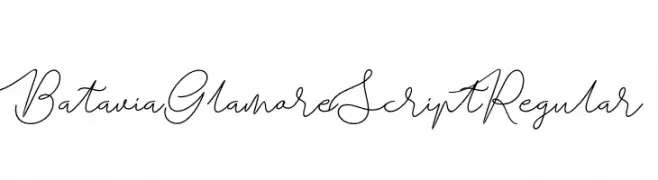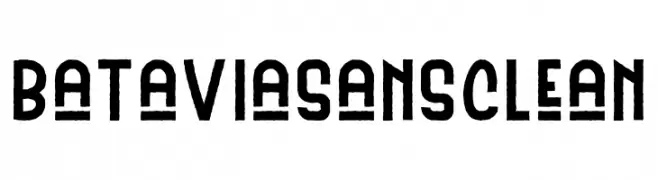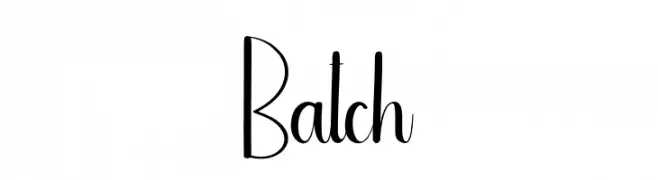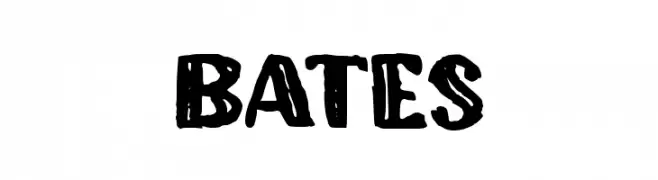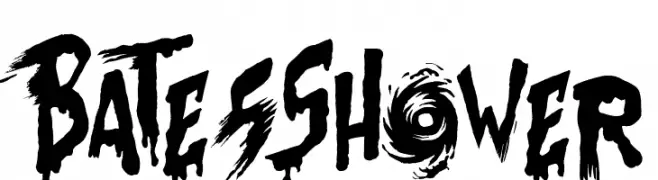
A bold, elegant script font with a flowing, cursive style.
A bold, elegant script font with flowing, connected strokes and decorative flourishes.
An elegant and sophisticated cursive script font with fluid, connected letters.
An elegant script font with fluid, interconnected strokes and a sophisticated appearance.
A bold, geometric font with thick, uniform strokes and a strong presence.
A bold, flowing script font with interconnected characters and dramatic curves.
Decorative font with a mix of tall uppercase and cursive lowercase letters.
A bold, hand-drawn font with an energetic and expressive style.
A bold, jagged font with a distressed, horror-themed aesthetic.
A bold, jagged font with a raw, brush-like style.